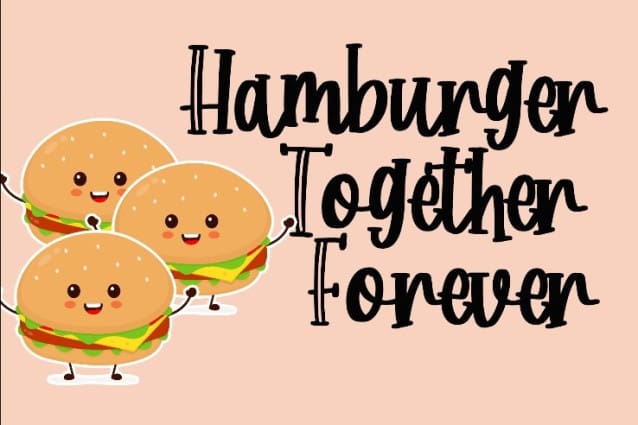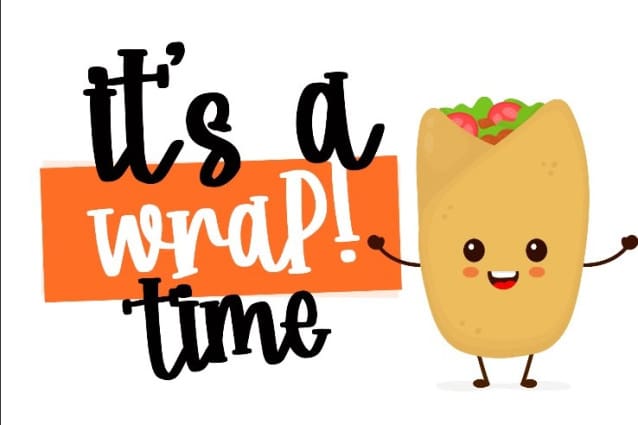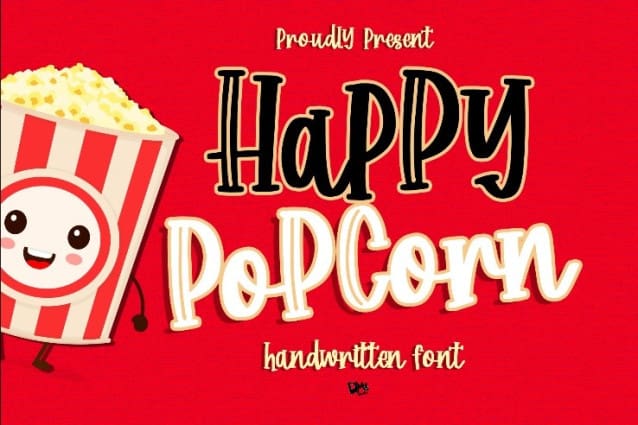
Happy Popcorn Font
Happy Popcorn Font is quirky, yet fun handwritten font! Great choice for any design, craft, quotes and much more! Perfect for cheerful projects, invitations, and more.